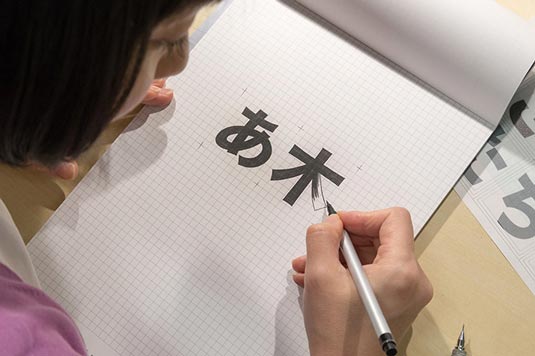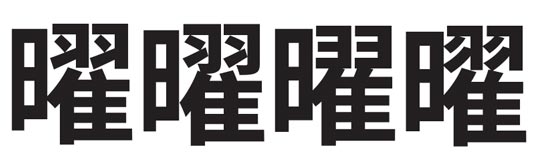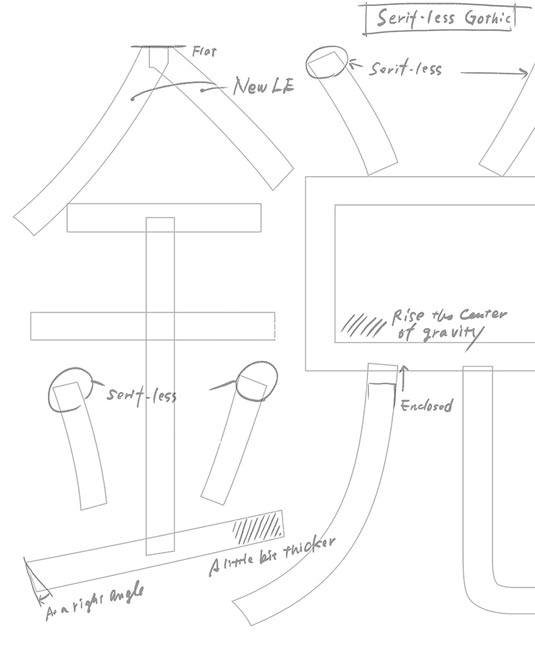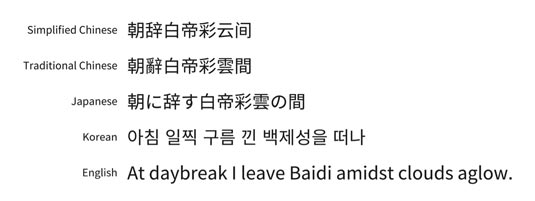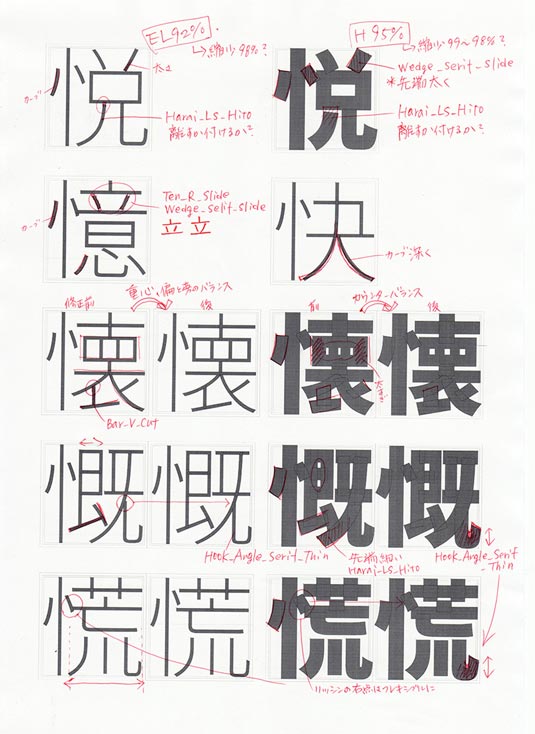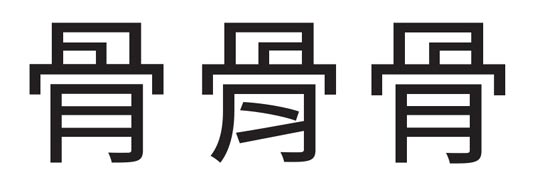
Google and Adobe launch free pan-Asian font
Adobe and Google have today released a new open source typeface that supports Japanese kanji, Chinese hanzi and Korean hanja characters, as well as Latin, Greek and Cyrillic alphabets.
This means designers no longer have to license multiple fonts to create content for international audiences across languages spoken by an estimated 1.5 billion people.
All in one
Created in collaboration with Asian font foundries Changzhou SinoType, Iwata Corporation, and Sandoll Communication, it's the first open source typeface to support Chinese, Japanese and Korean in one font family.
The font also covers regional variations such as Traditional Chinese (including Taiwan and Hong Kong SAR) and Simplified Chinese. In all, the project partners have designed 65,535 glyphs for each font, the maximum number for the OpenType format.
Two names
The font family is being released under two different names by Adobe and Google. Adobe is releasing it through via its Typekit service, as well as SourceForge and GitHub, as Source Han Sans. Meanwhile Google is releasing the font under the name Noto Sans CJK as part of its Noto pan-Unicode font family.
The family is available in seven weights in full fonts, as well as region-specific subsets, equaling a total of 42 typefaces, designed for screen devices and print.